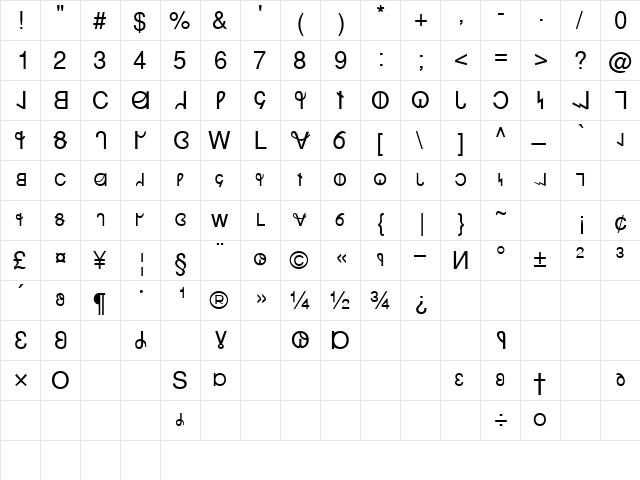
LevantSSK Regular
Design Context for LevantSSK Typeface
LevantSSK takes a measured approach to typography — its balanced proportions and neutral character make it a reliable workhorse for both digital and print work.